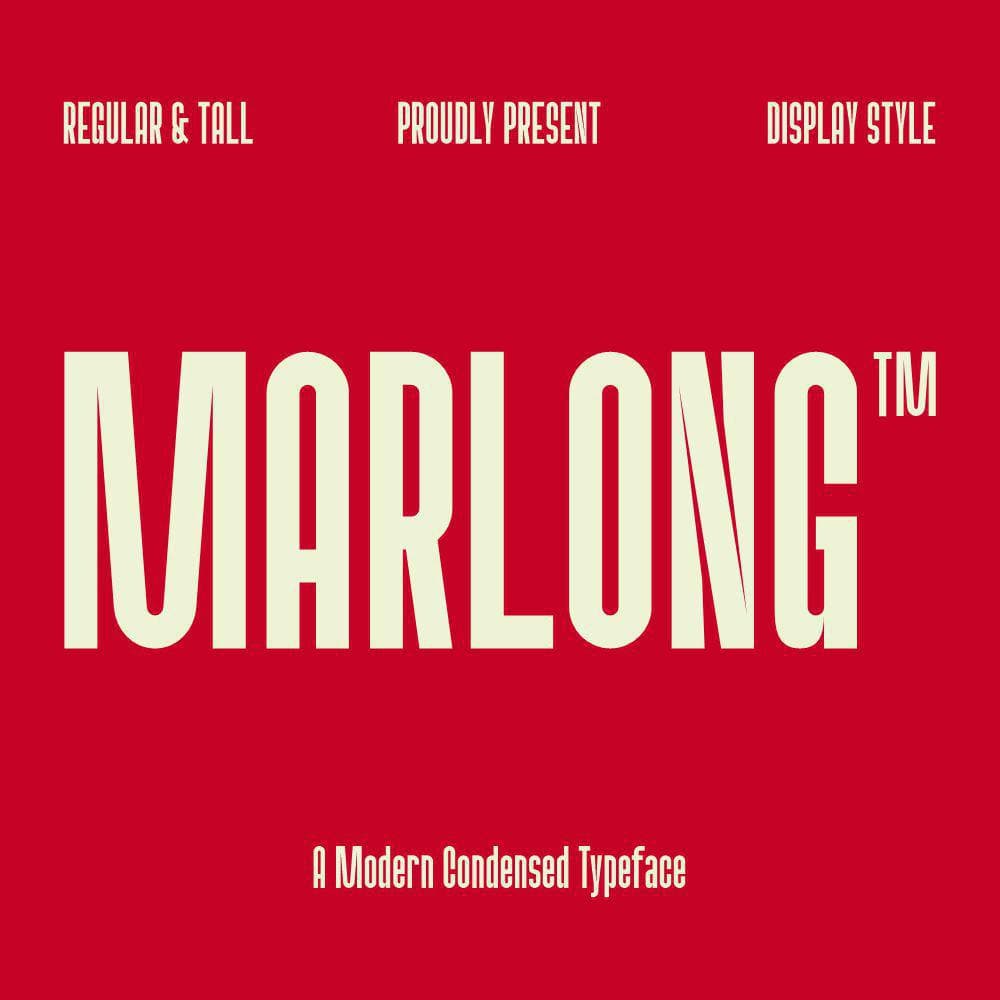
<p>The <strong>Marlong</strong> typeface is a modern, condensed display font characterized by its tall, narrow letterforms and strong geometric structure. This font exhibits a bold and commanding presence, making it ideal for impactful visual communication. It features sharp edges, high contrast, and a slightly vintage aesthetic, reminiscent of mid-century typography but with a contemporary twist.<br>Marlong comes in regular and tall styles, offering flexibility in design applications. The condensed nature of the typeface allows for efficient space utilization while maintaining readability and a striking visual appeal. The elongated letterforms exude elegance and authority, making it particularly well-suited for headlines, posters, branding, and editorial design.<br>The font’s overall aesthetic is defined by its minimalist yet expressive nature, with subtle details like angled cuts and sharp terminals adding a unique character. Its high legibility and strong vertical emphasis make it effective for both digital and print use, where bold typographic statements are required.</p>